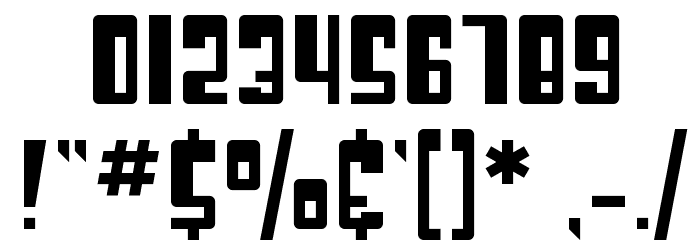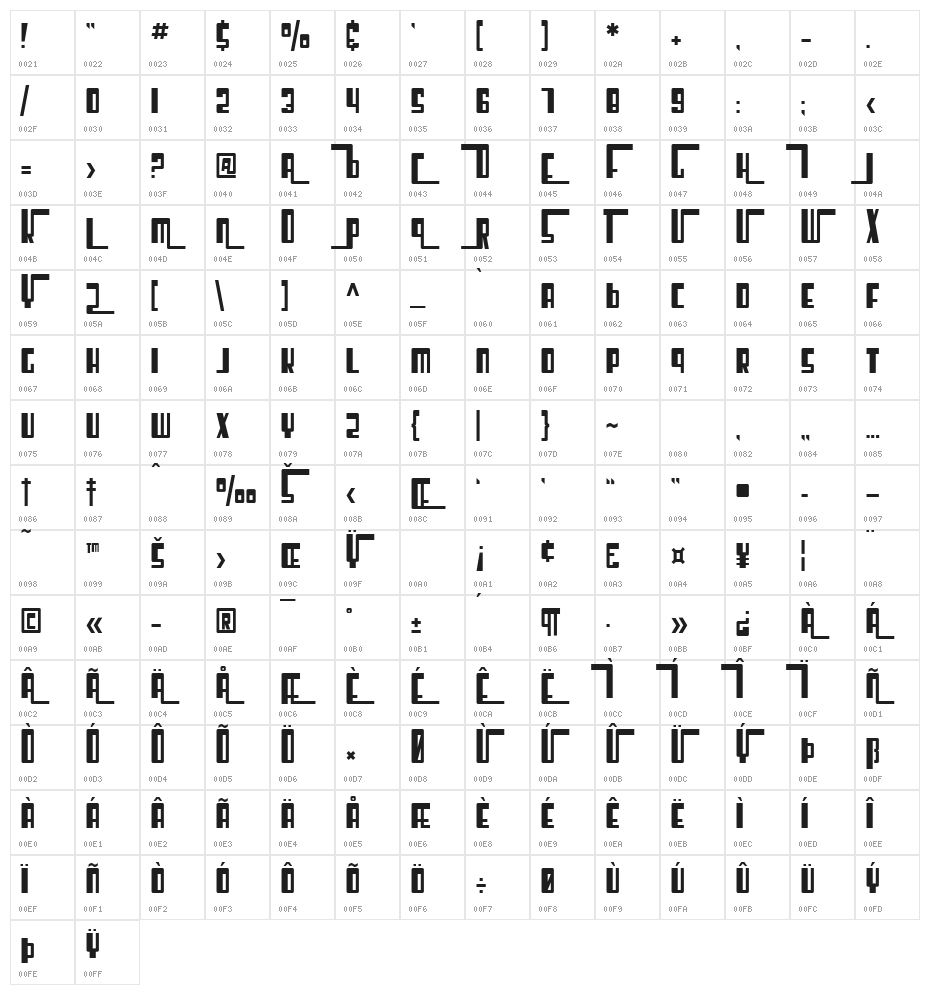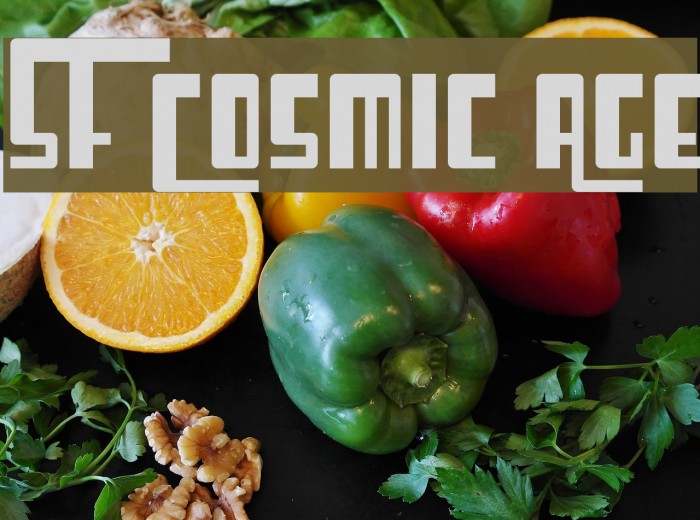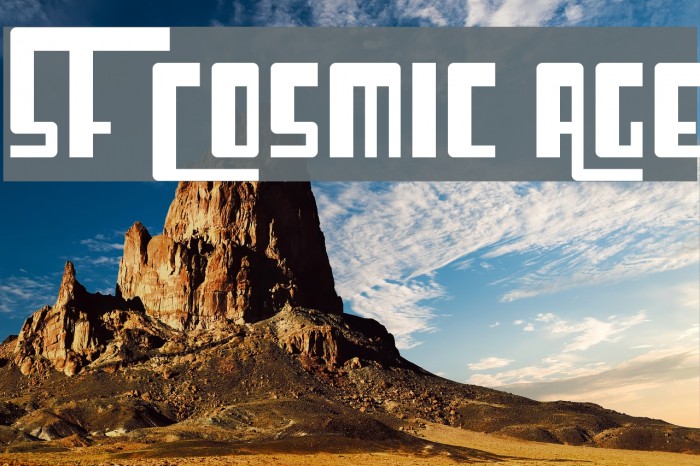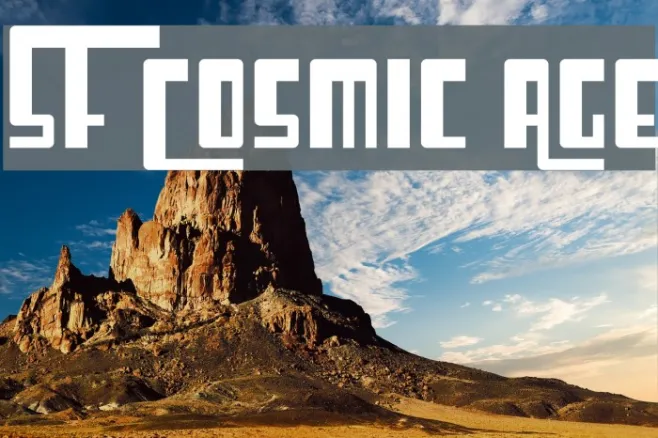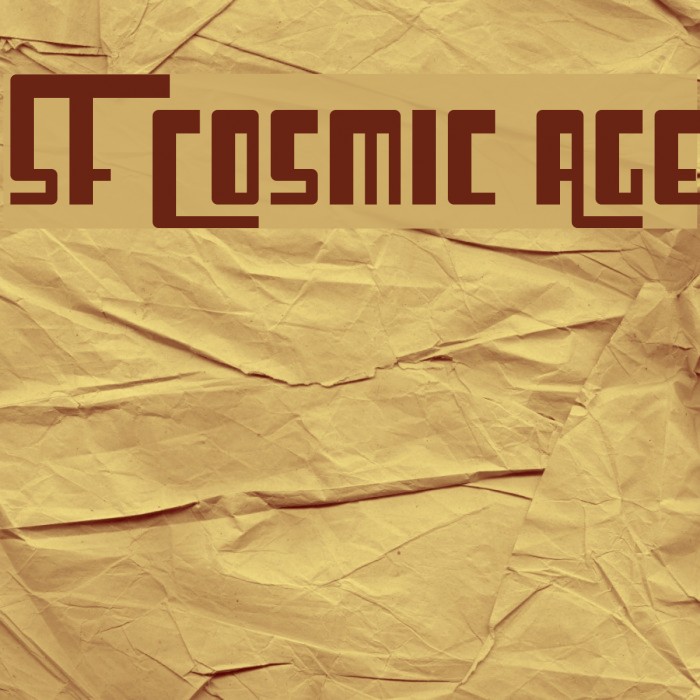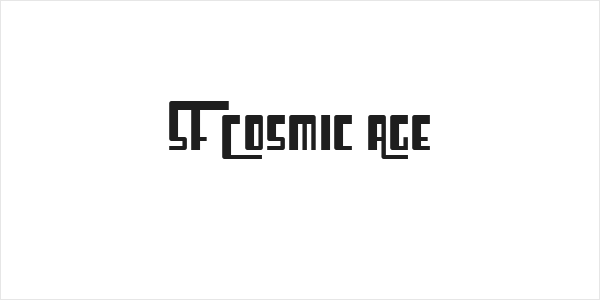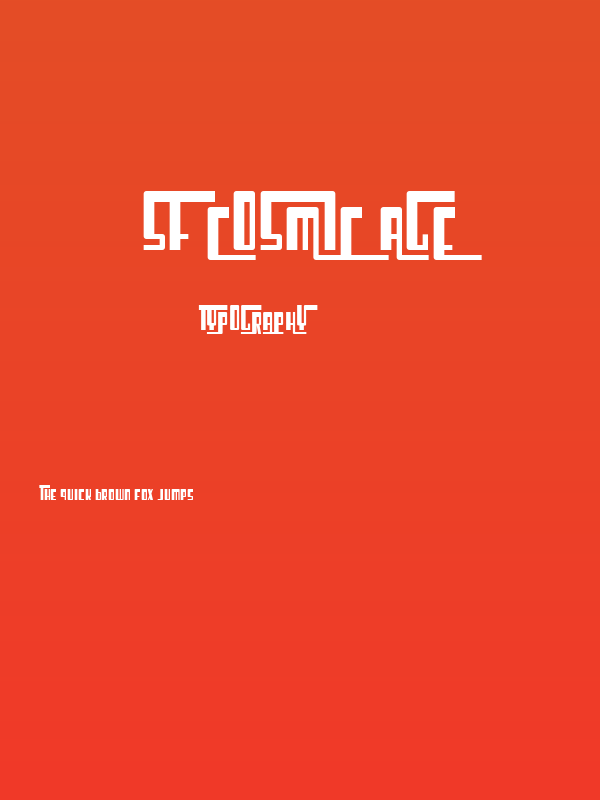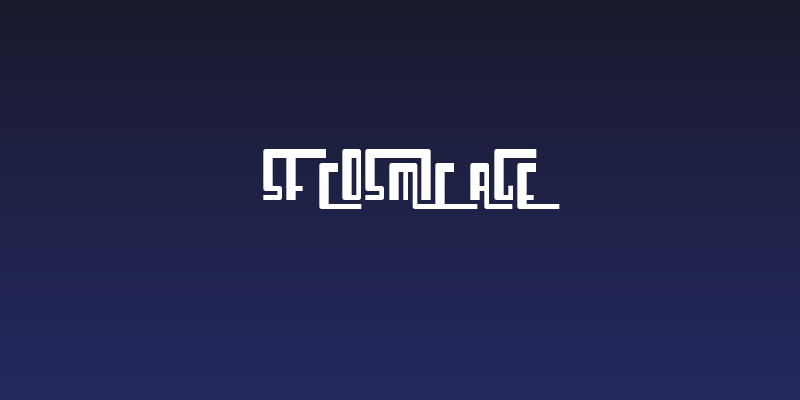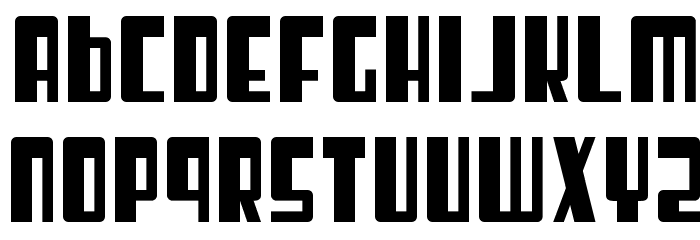
SF Cosmic Age Font
SF Cosmic Age Description
This font features a bold, futuristic design with a strong geometric structure. The characters are constructed with thick, block-like forms that convey a sense of strength and modernity. The uppercase and lowercase letters maintain a consistent height, creating a uniform appearance. The numerals and special characters are designed to match the boldness of the alphabet, ensuring cohesion across all glyphs. The overall aesthetic is reminiscent of sci-fi themes, making it ideal for projects that require a modern and edgy look.
| Proposed Projects | Ideal for sci-fi themed posters, video game titles, tech branding, and futuristic designs. |